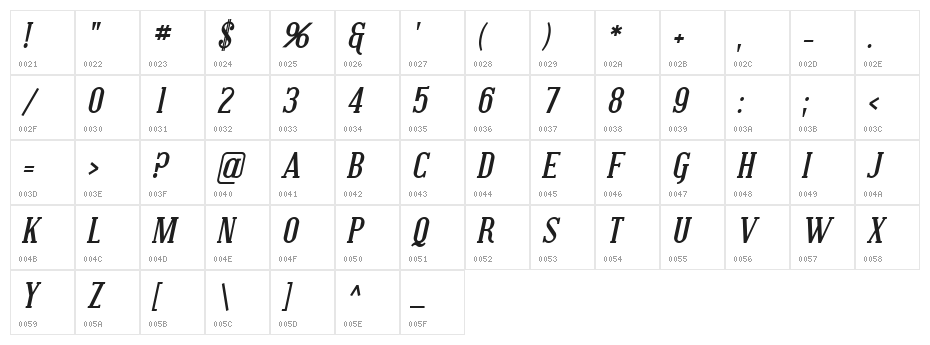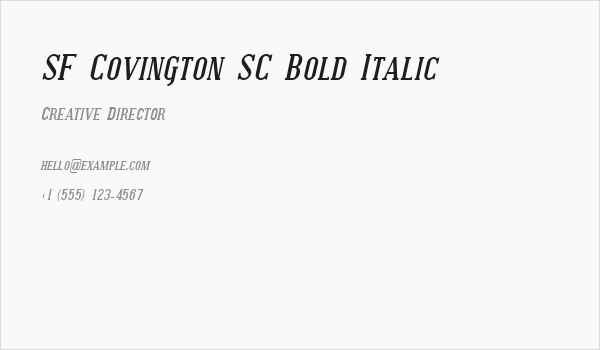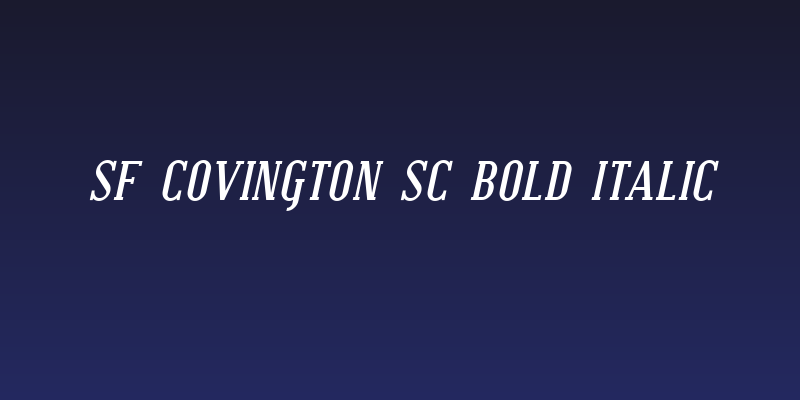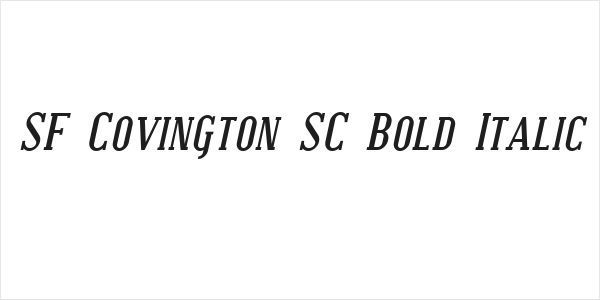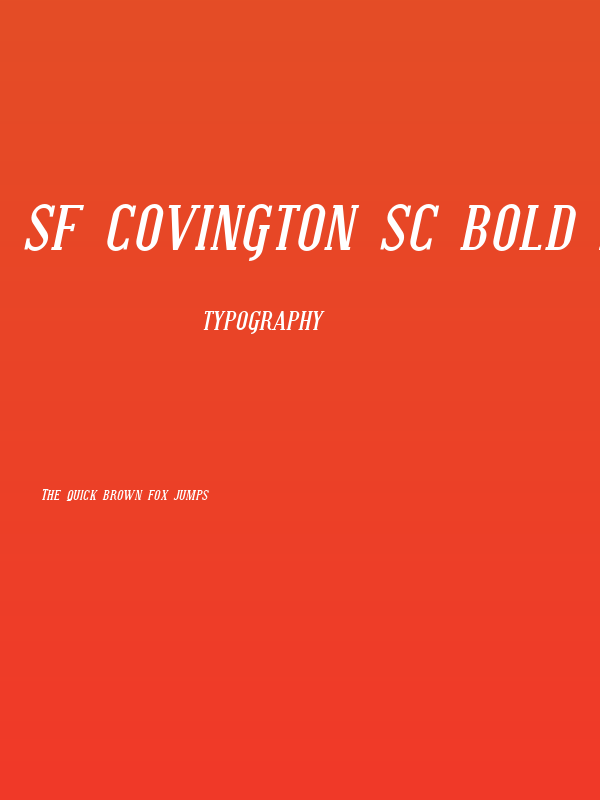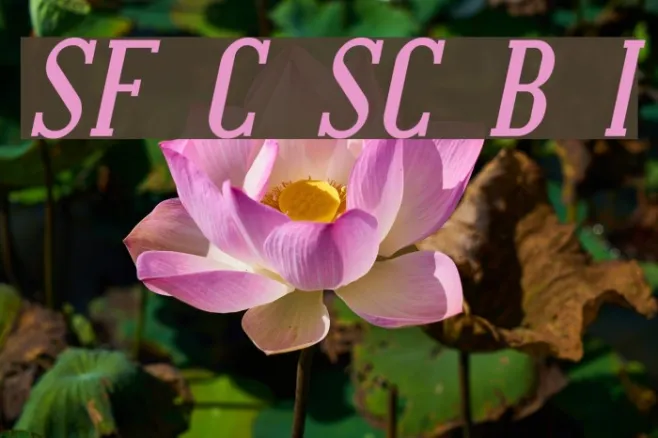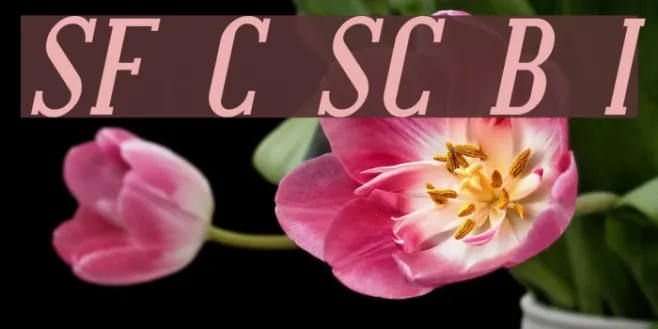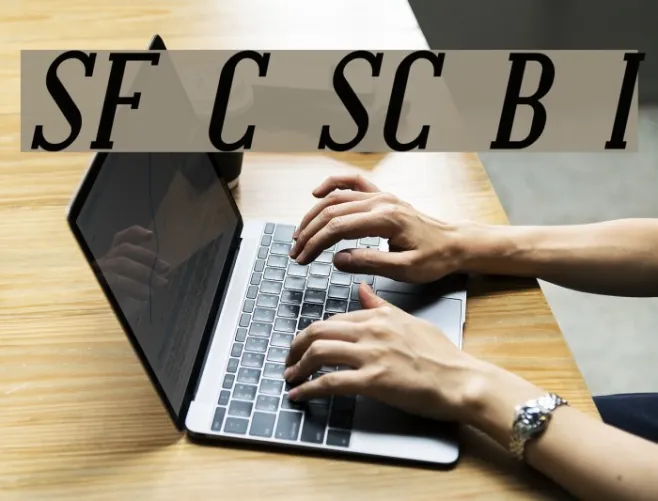
SF Covington SC Bold Italic Font
SF Covington SC Bold Italic Description
This typeface features a bold and italicized style, combining strength with elegance. The characters are sharply defined, with a noticeable slant that adds a dynamic and forward-moving energy. The strokes are thick and consistent, providing a robust appearance. The uppercase letters are tall and commanding, while the lowercase letters maintain a cohesive flow. The numerals are clear and legible, matching the boldness of the alphabet. Special characters are distinct and well-integrated, ensuring versatility across various applications. This font's bold italic nature makes it suitable for impactful and stylish designs.
| Proposed Projects | Ideal for branding, headlines, posters, and any design requiring a bold, stylish statement. |